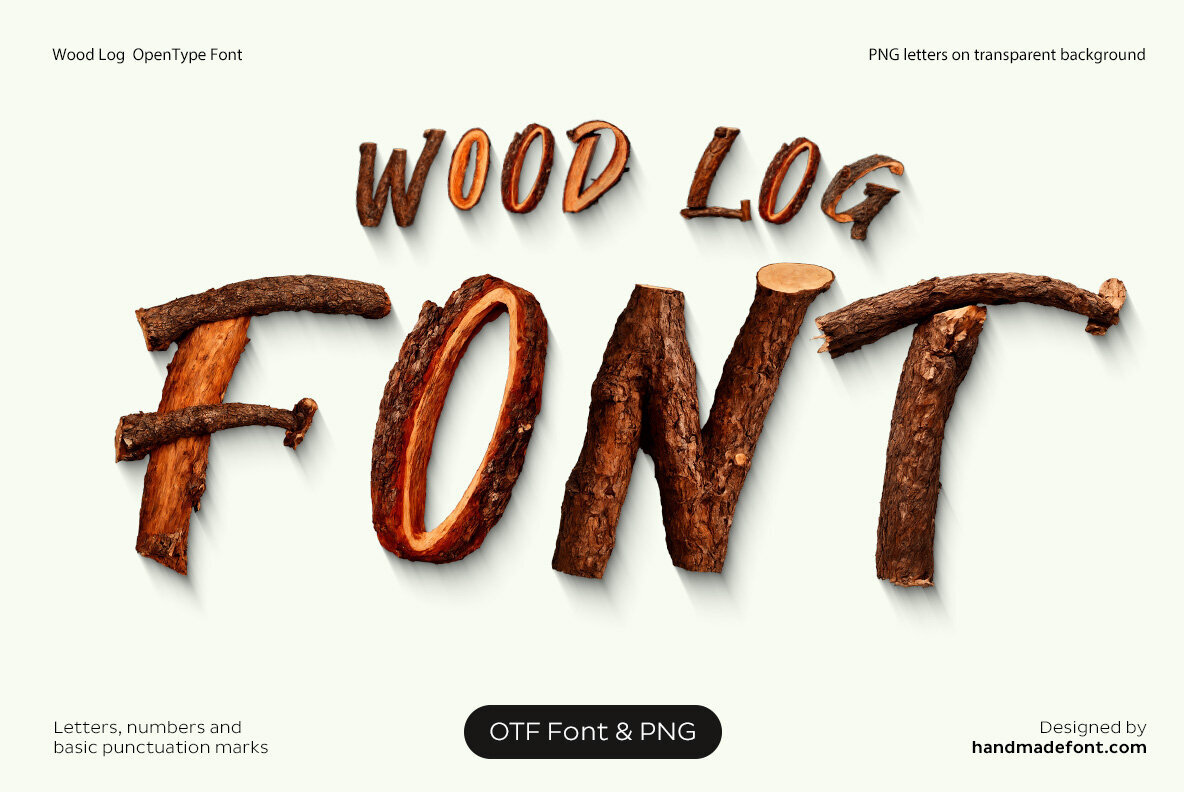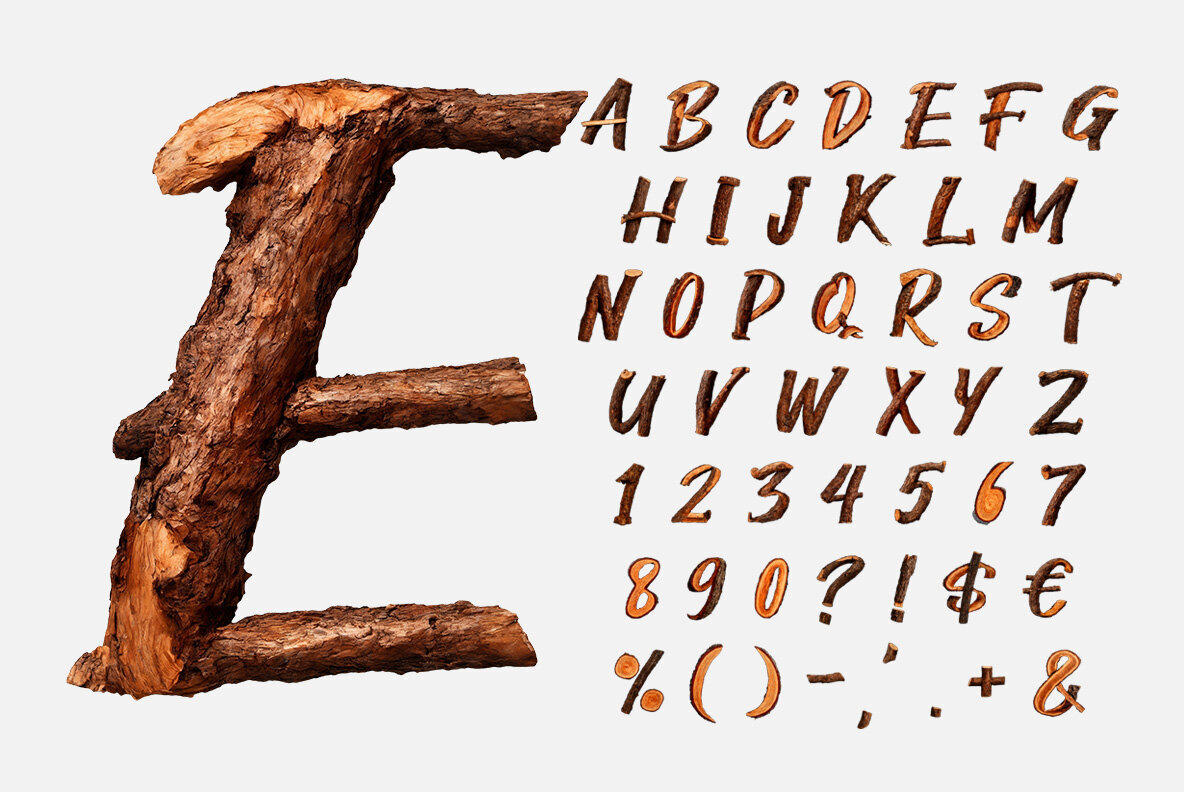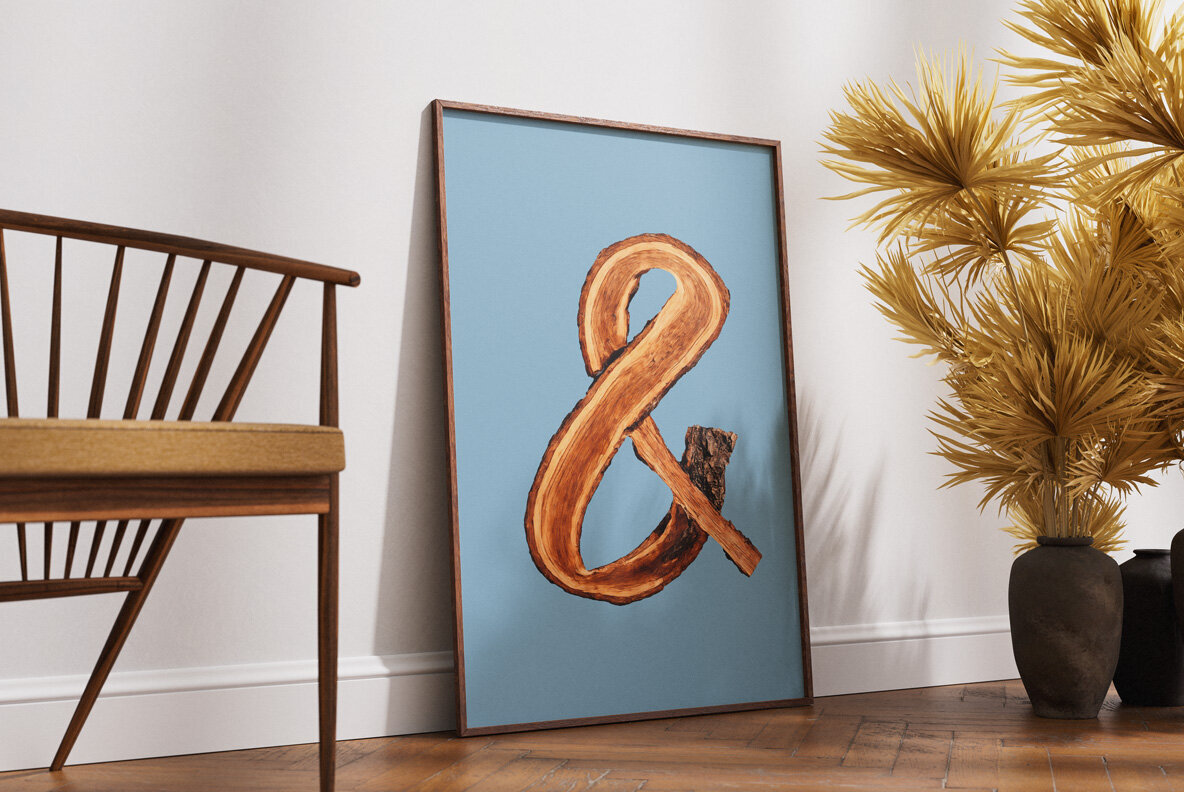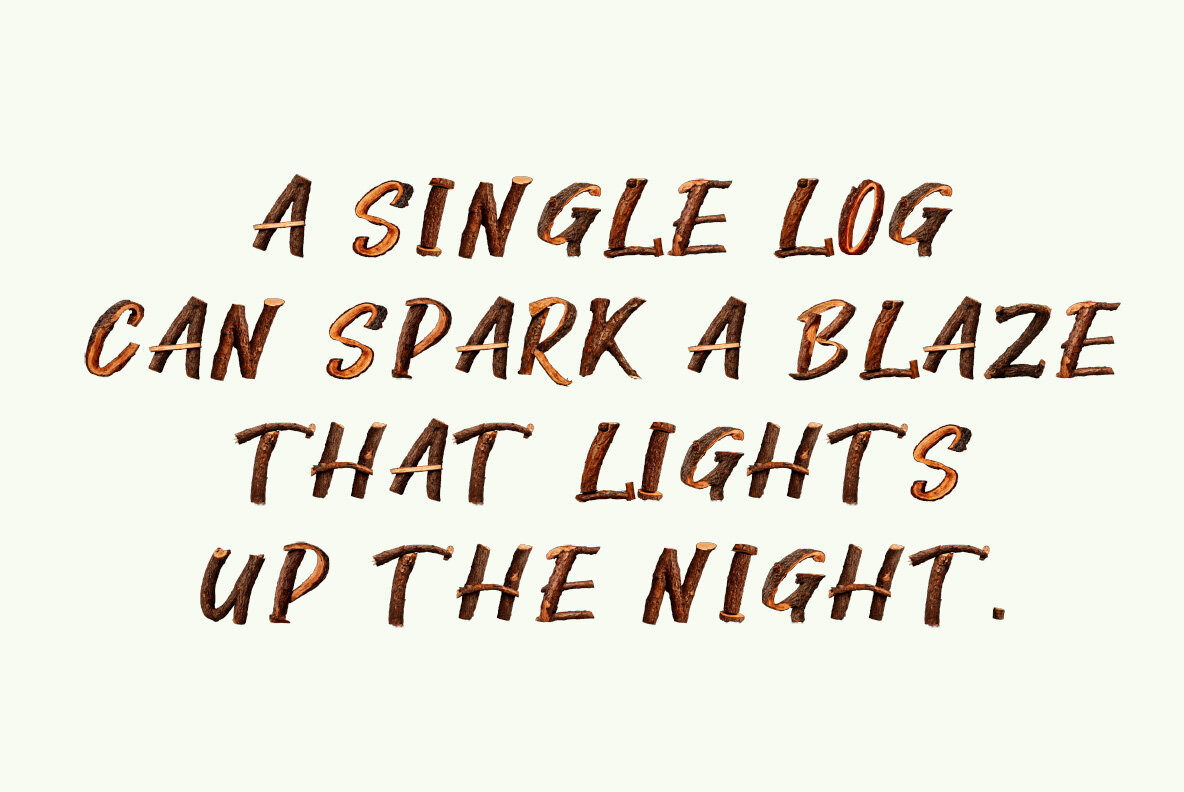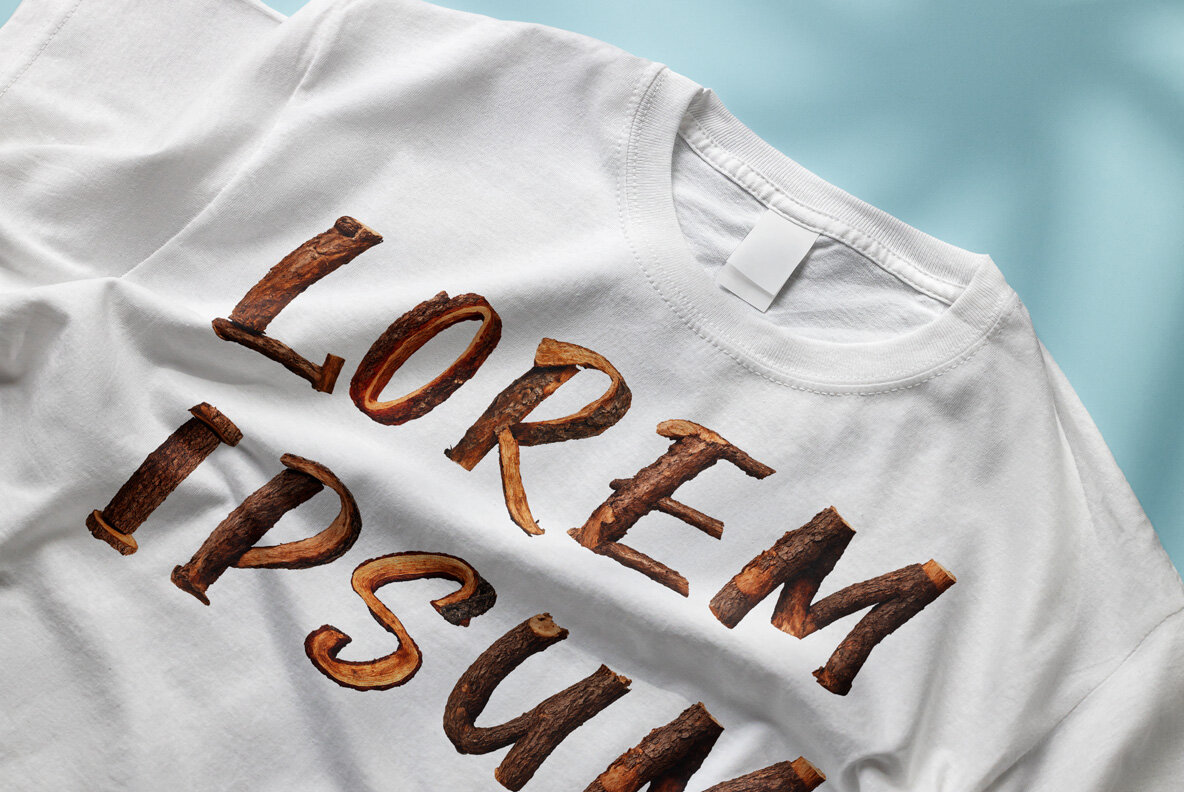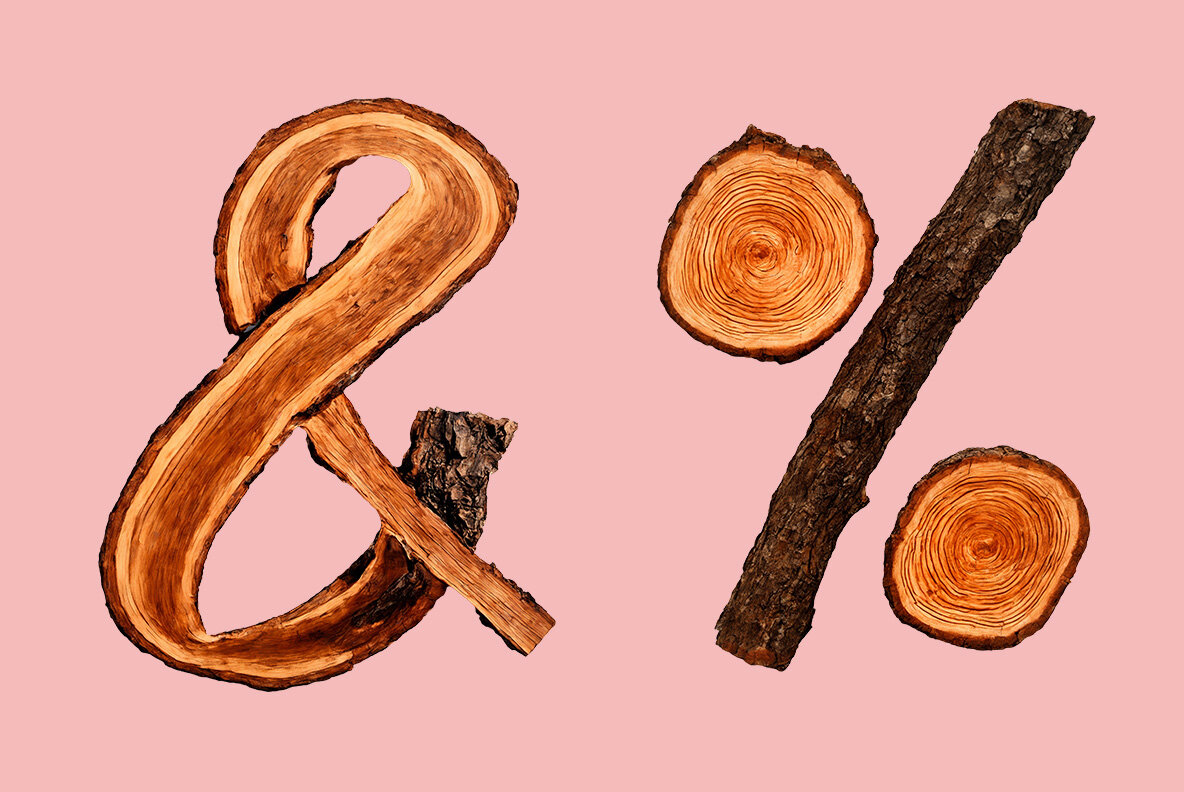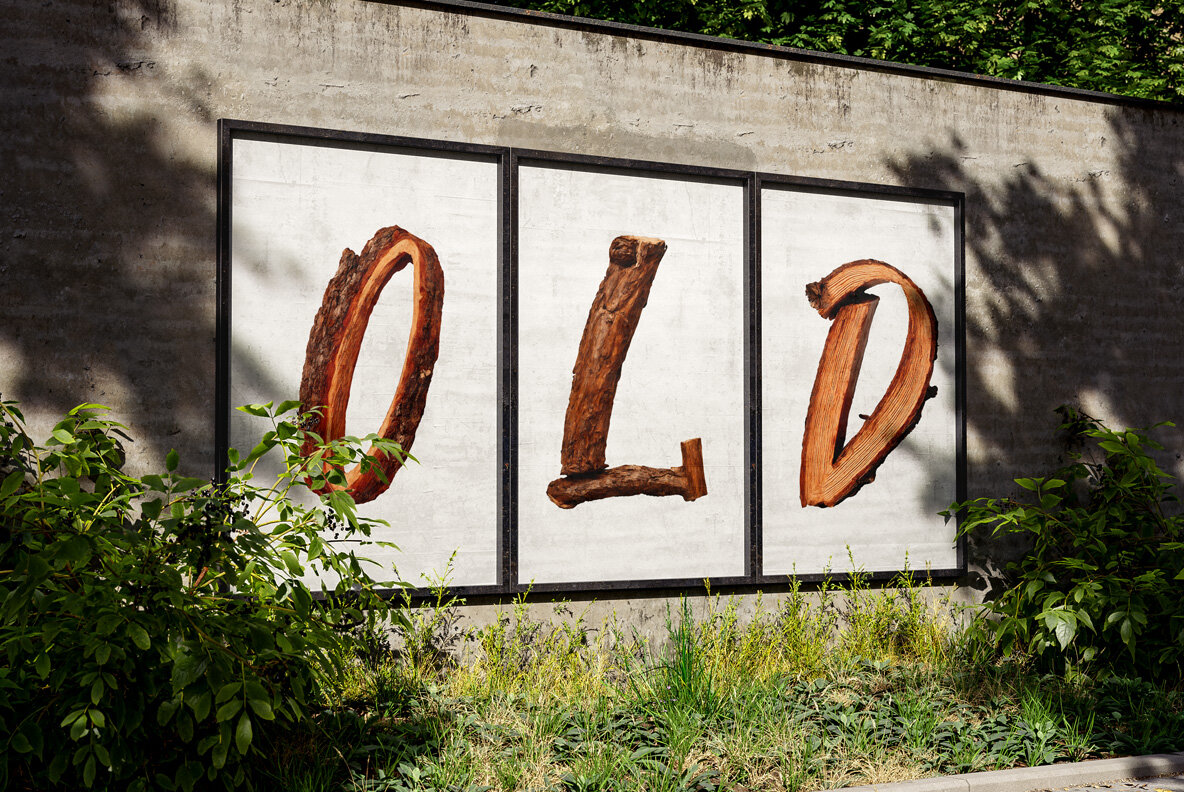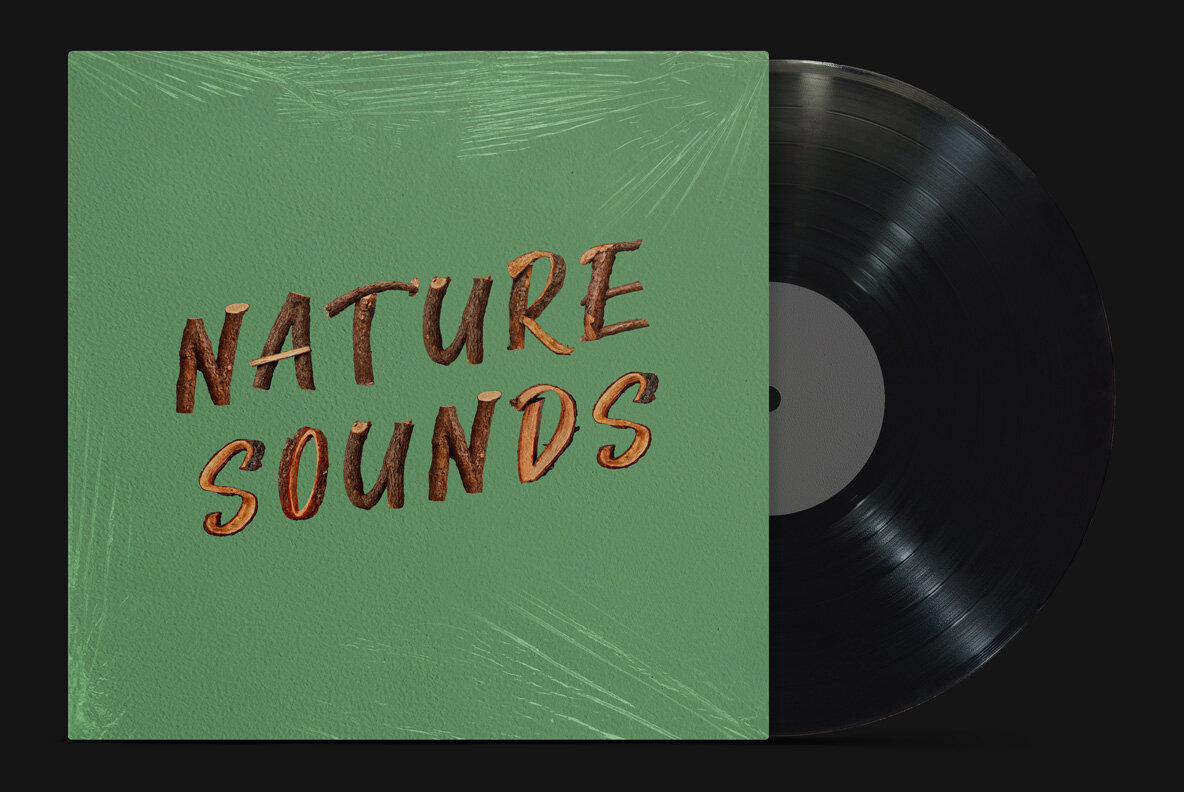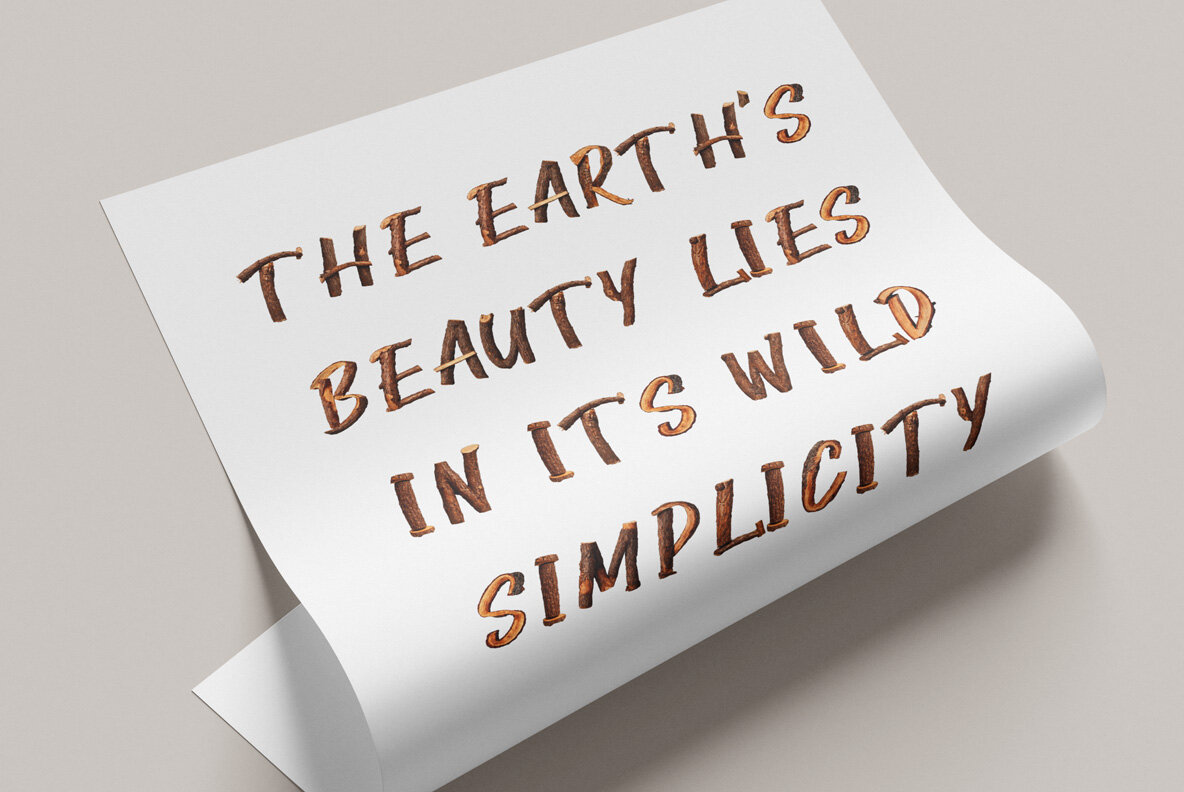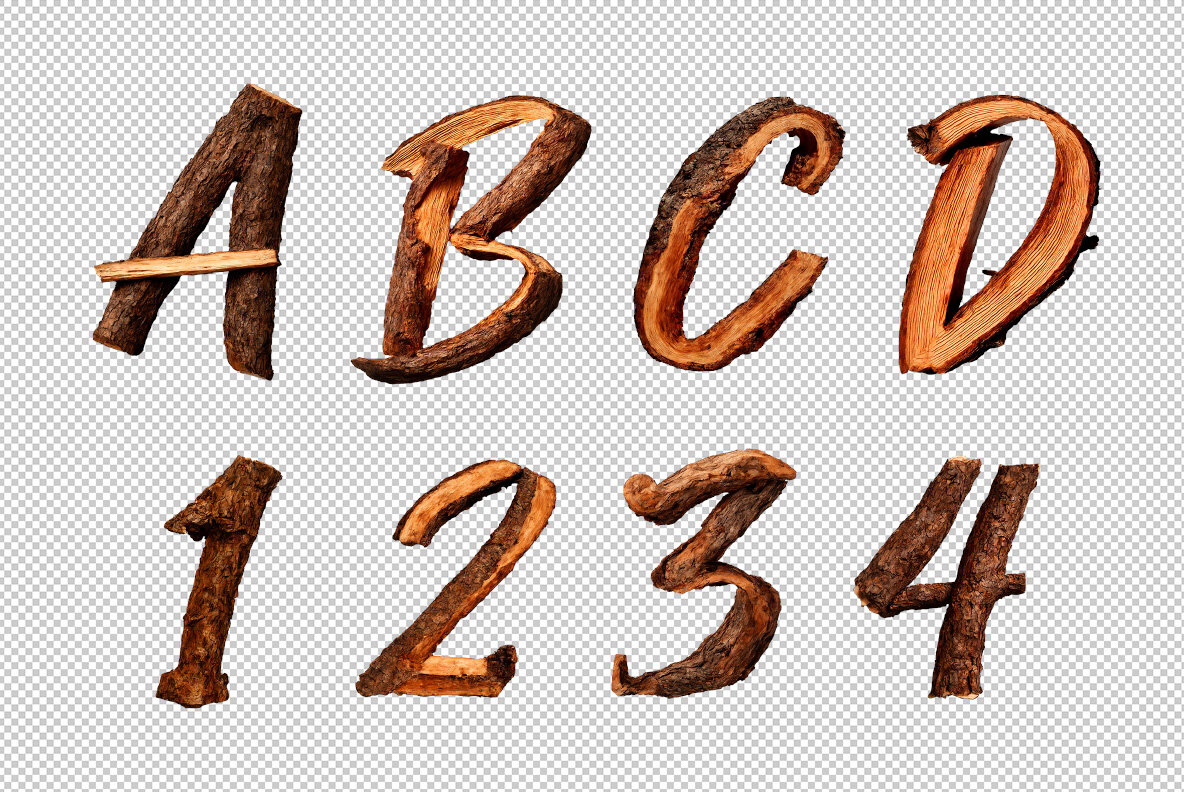
Wood Log is a unique typeface that brings the essence of the forest to your designs. This wood-inspired font features meticulously crafted letters resembling logs and branches to reflect the raw allure of organic materials. Perfect for projects requiring a natural aesthetic, the typeface harmonizes rustic texture with elegant typography, making it ideal for wood-themed branding, posters, or creative crafts. Each character embodies a touch of earthy sophistication, ensuring your designs resonate with nature's charm.